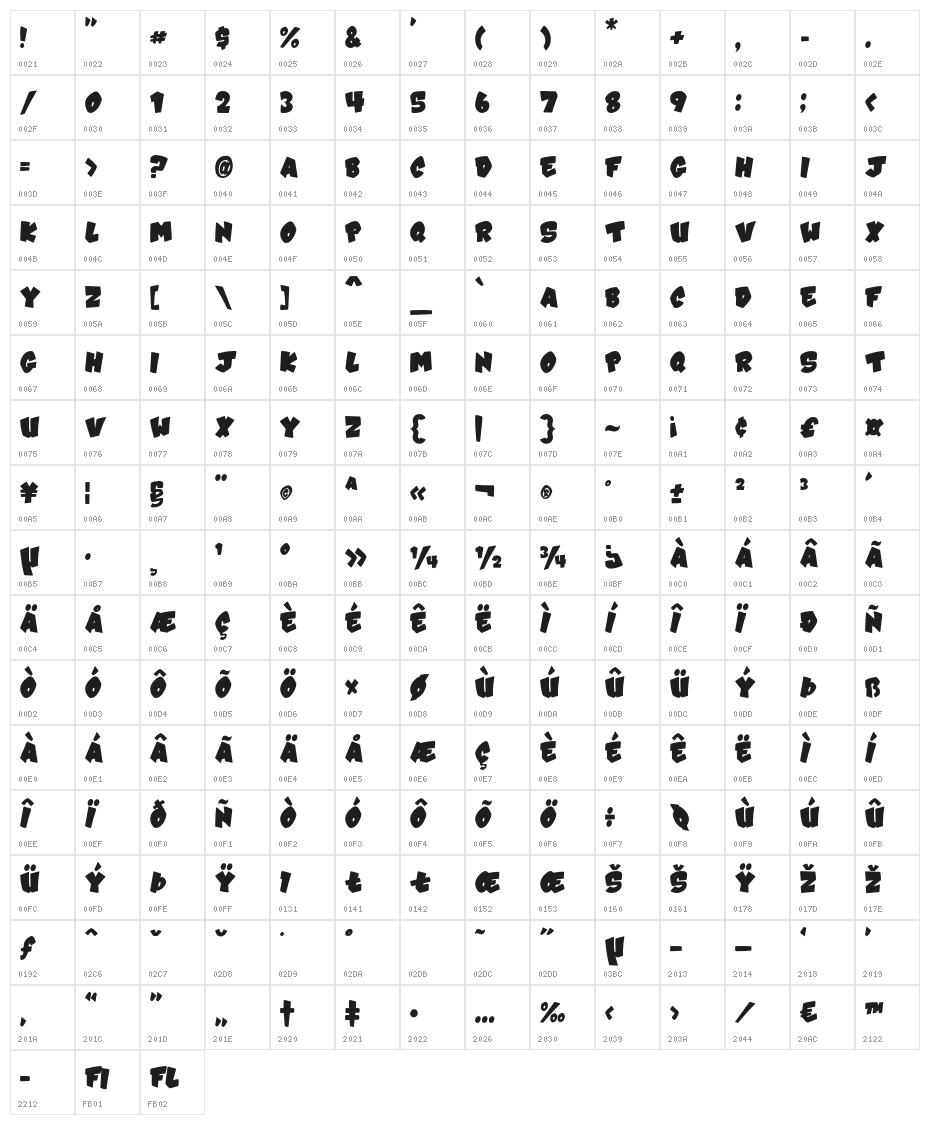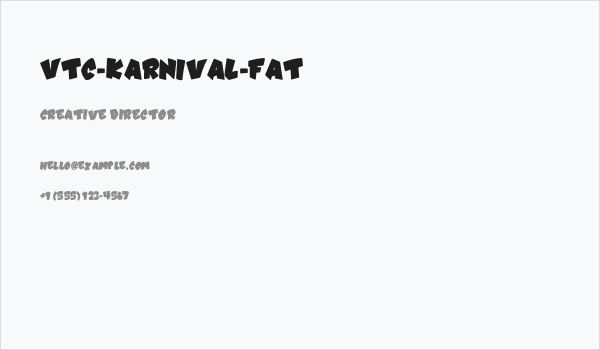
VTC-Karnival-Fat Font
VTC-Karnival-Fat Description
This bold and playful font features thick, exaggerated strokes that give it a lively and energetic appearance. The characters are heavily stylized with a cartoonish flair, making them stand out with their chunky, irregular shapes. The font's whimsical design is perfect for capturing attention and adding a fun, informal touch to any project. Its boldness ensures high readability, even from a distance, while the unique character shapes add a distinctive personality. The font includes a full set of uppercase and lowercase letters, numbers, and a variety of special characters, all maintaining the same playful style.
| Overall Style | Playful, Cartoonish |
| Proposed Projects | Ideal for children's books, comic strips, party invitations, and playful branding materials. |